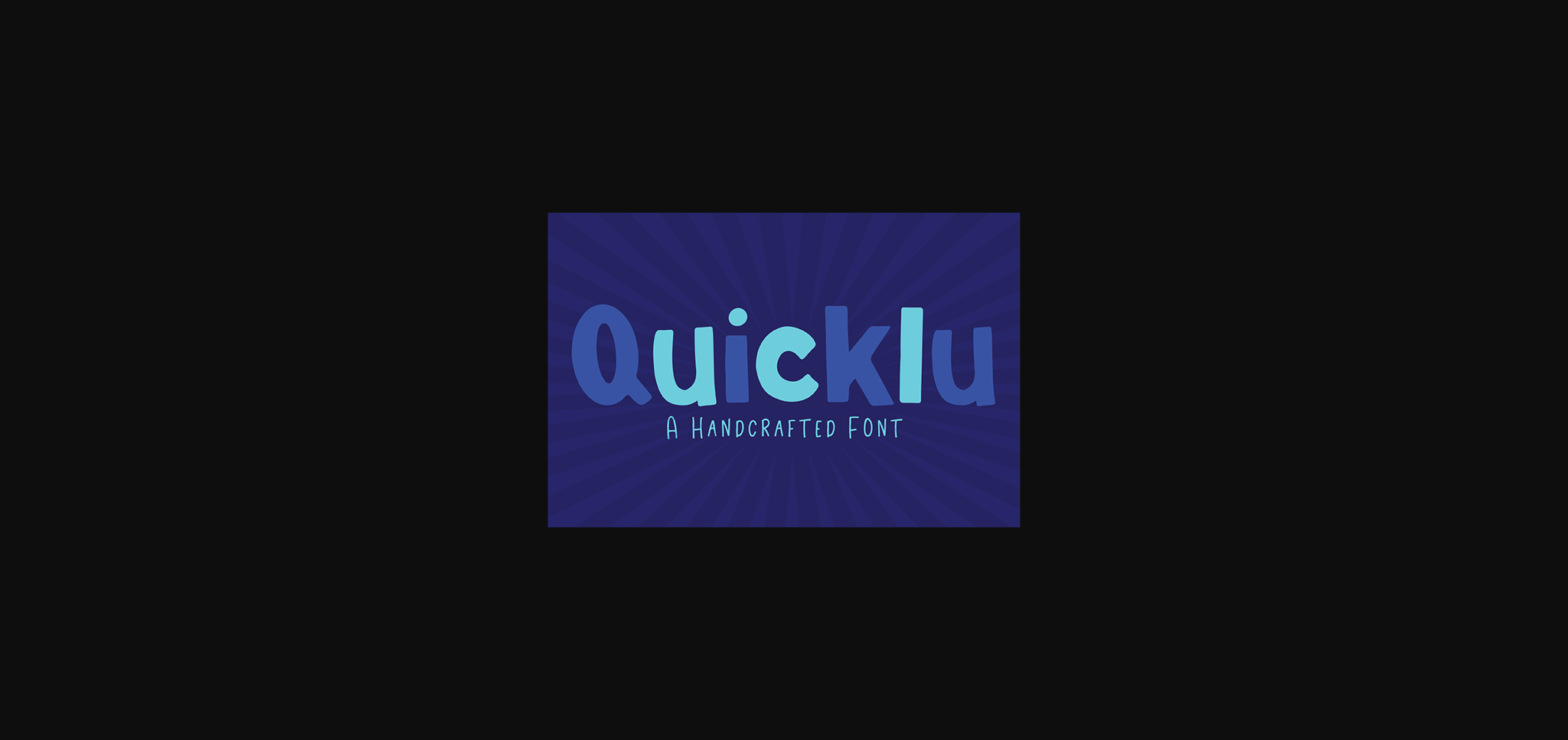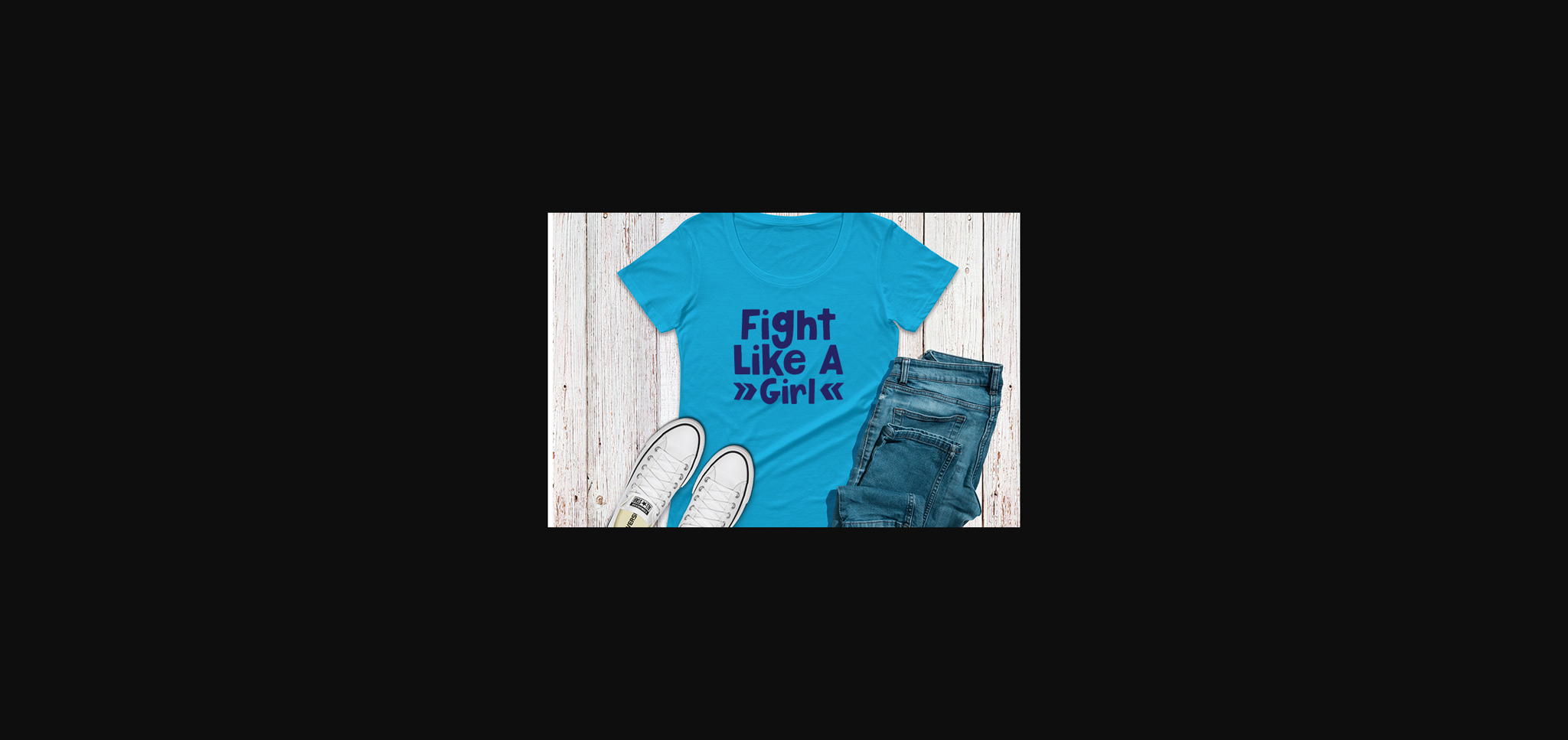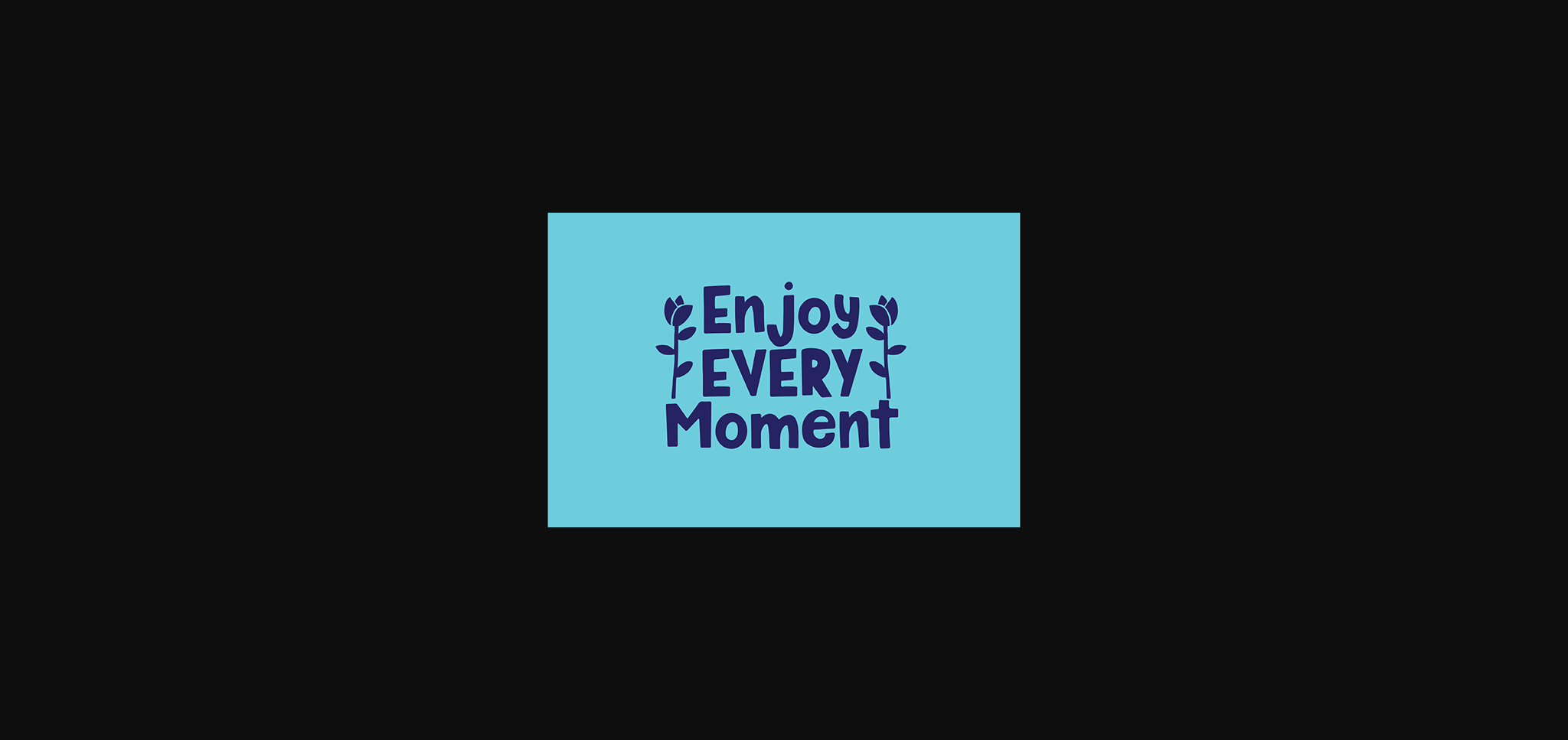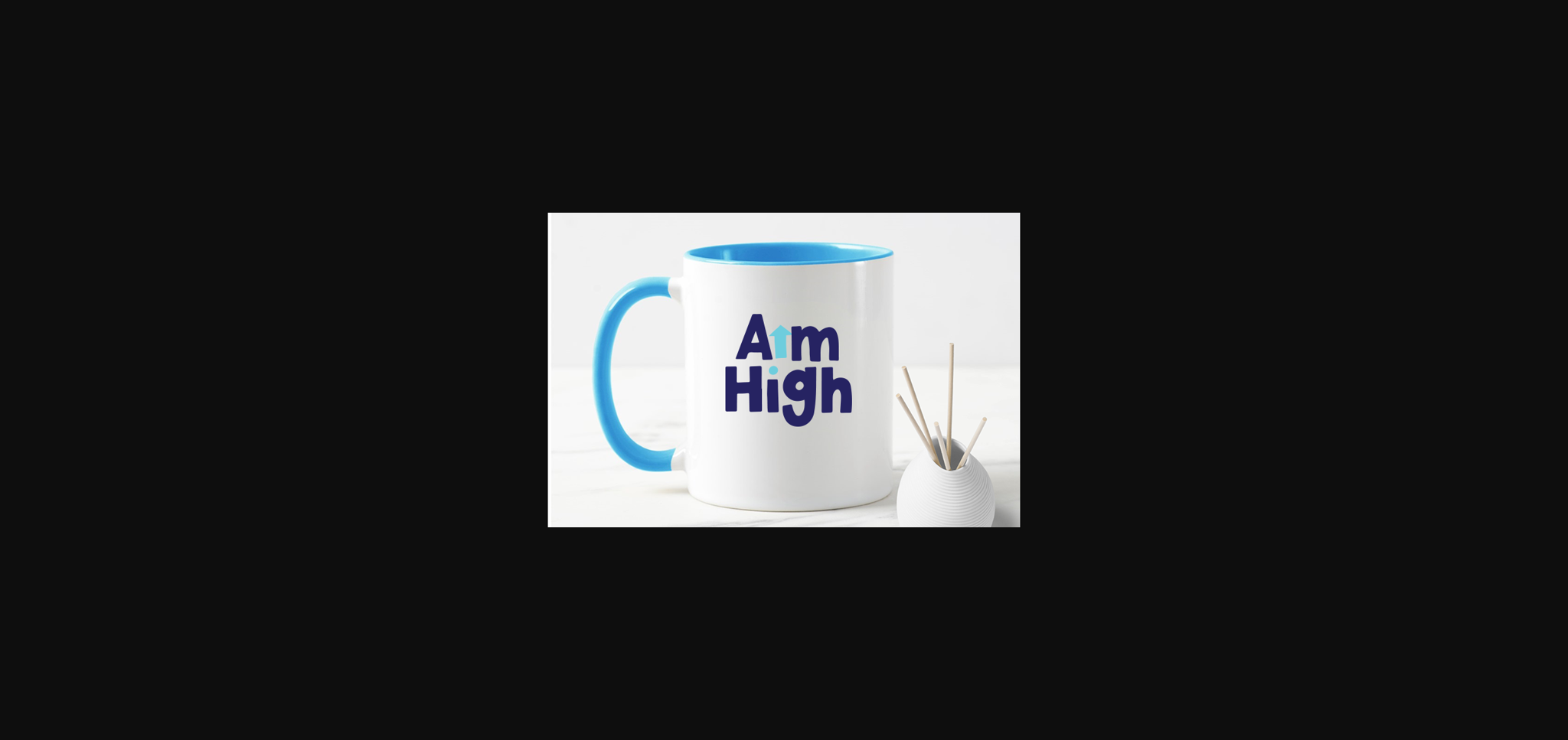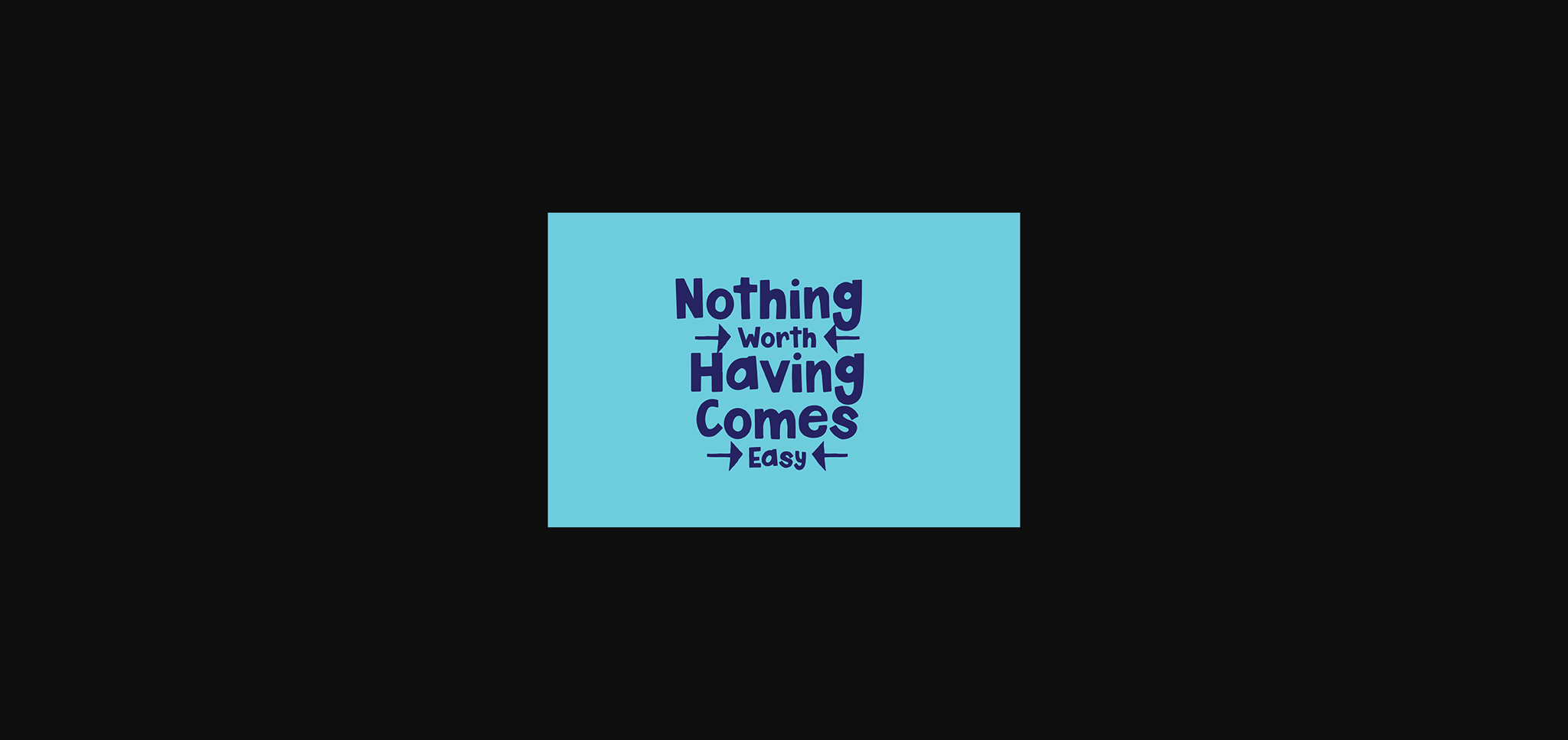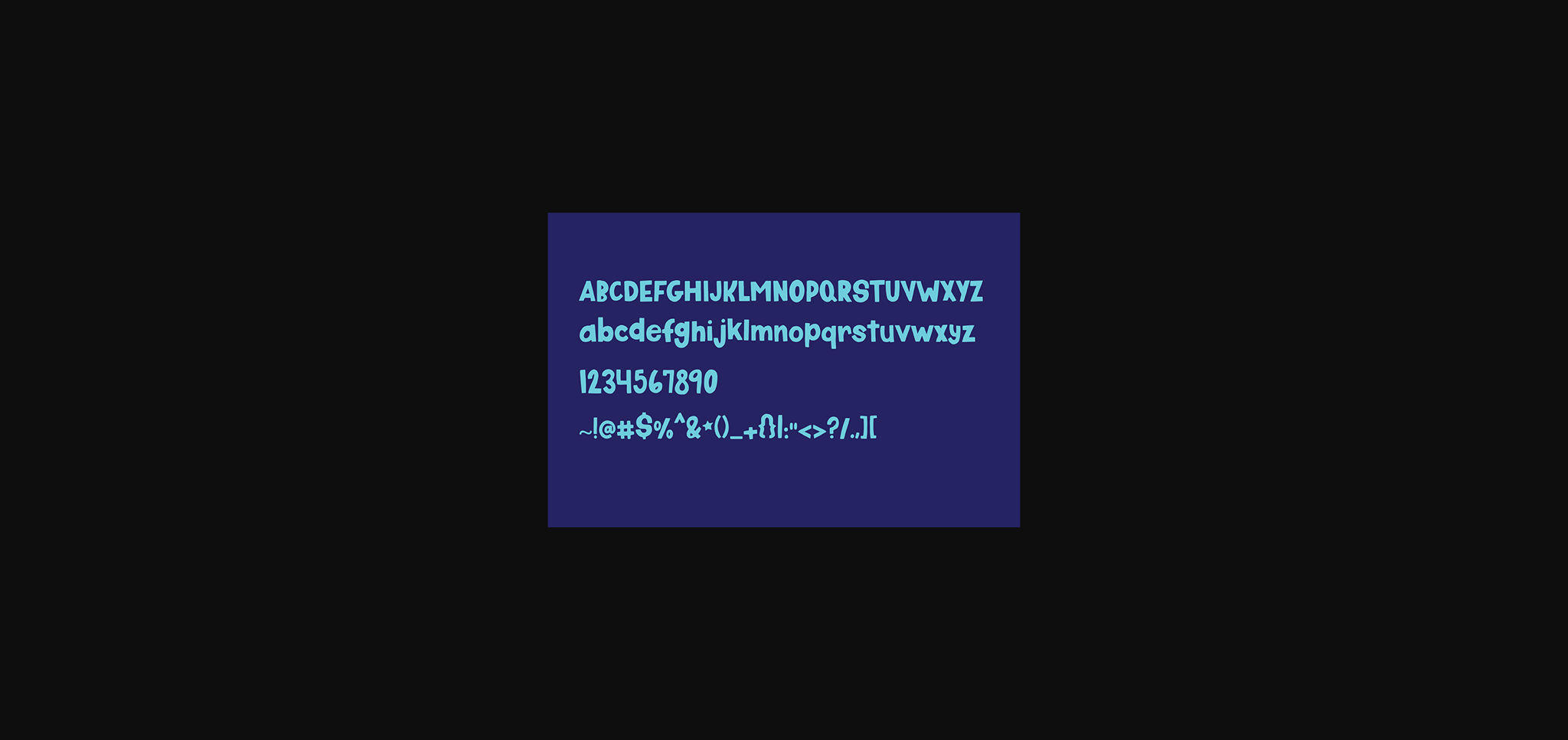
Quicklu Font
About Quicklu Font
Quicklu is a cute and casual handwritten font with an incredibly friendly feel. It will look great in all your branding and typography projects. Use it to create T-Shirts, greeting cards, cut files and much more.